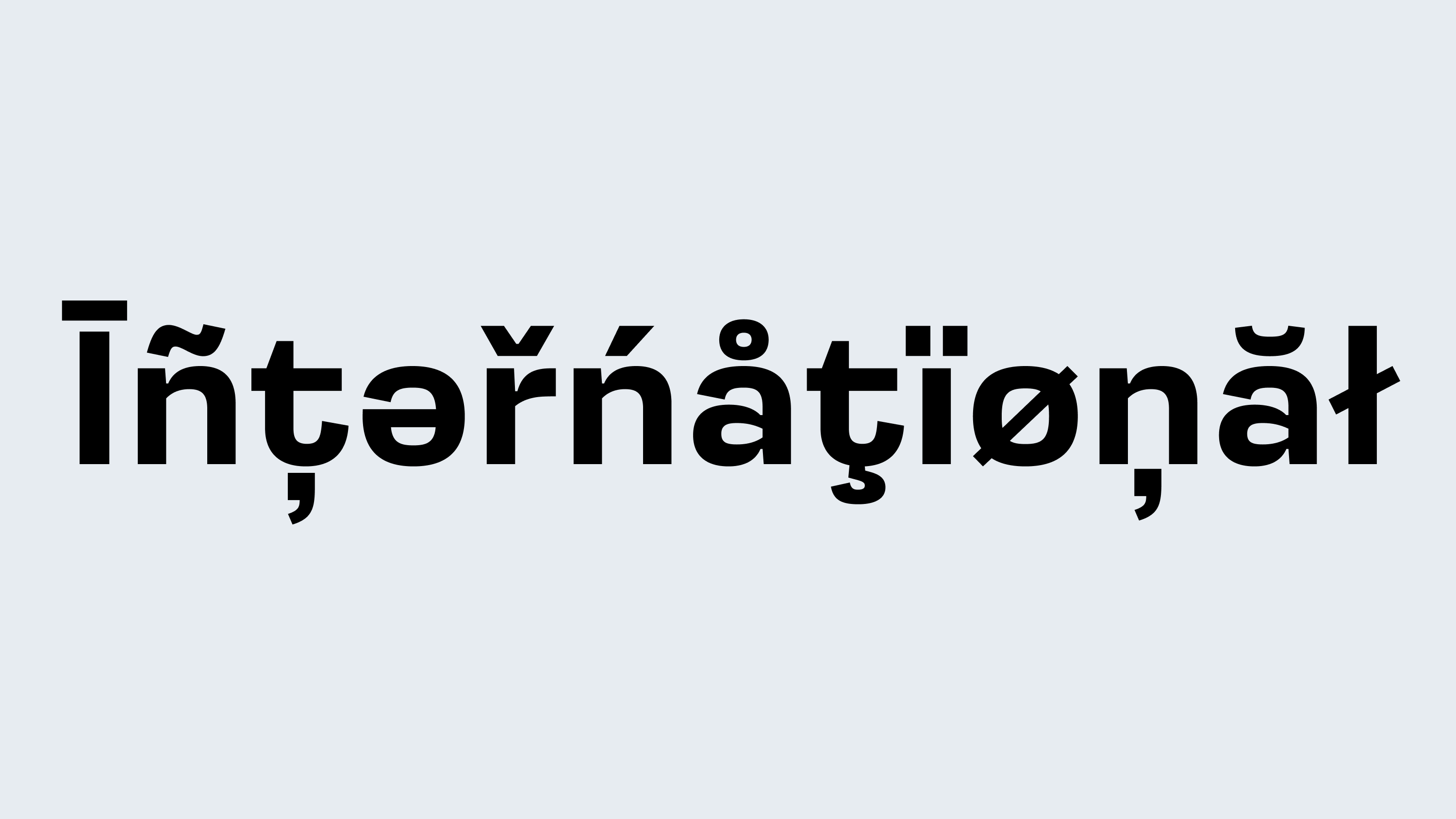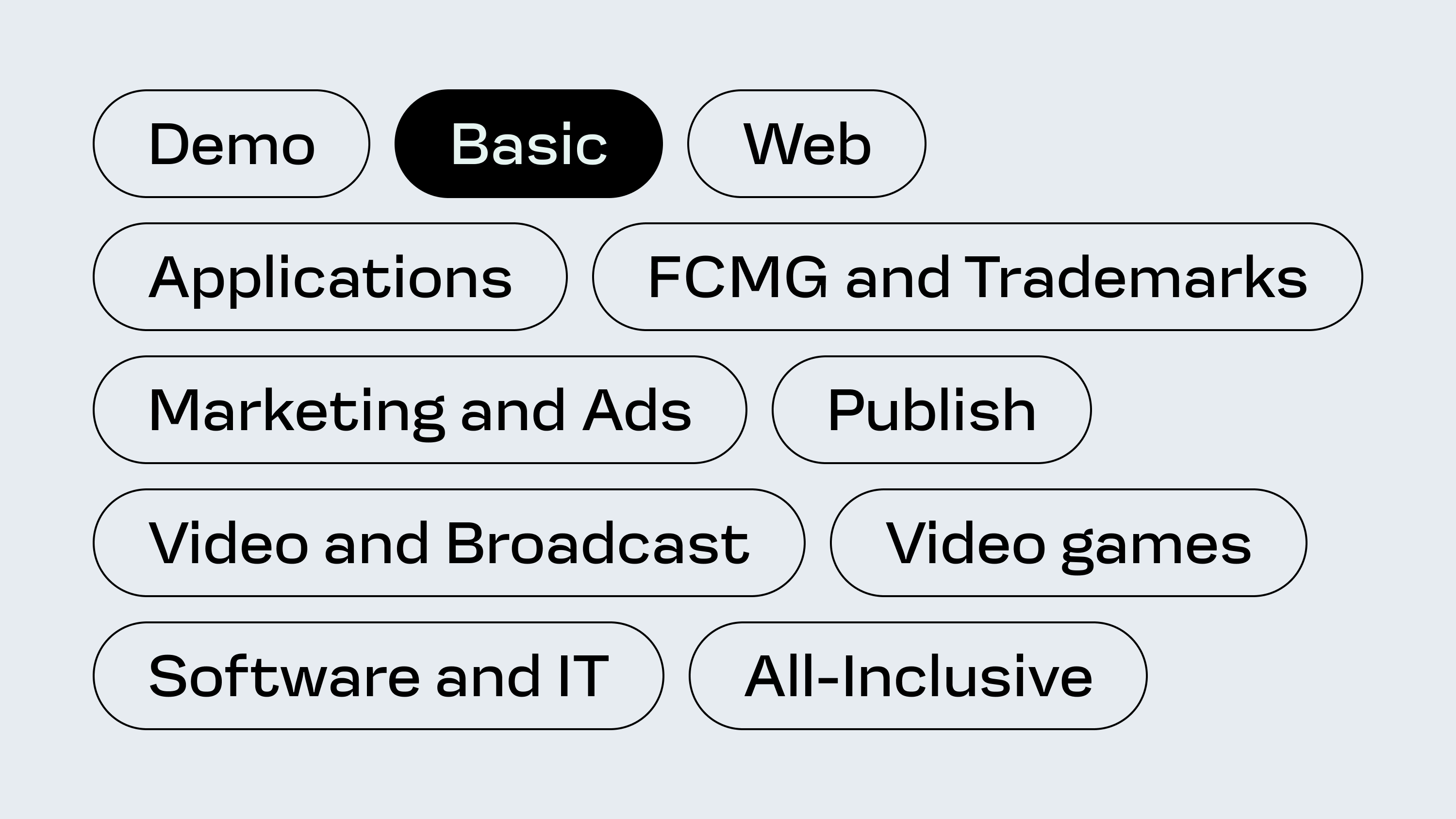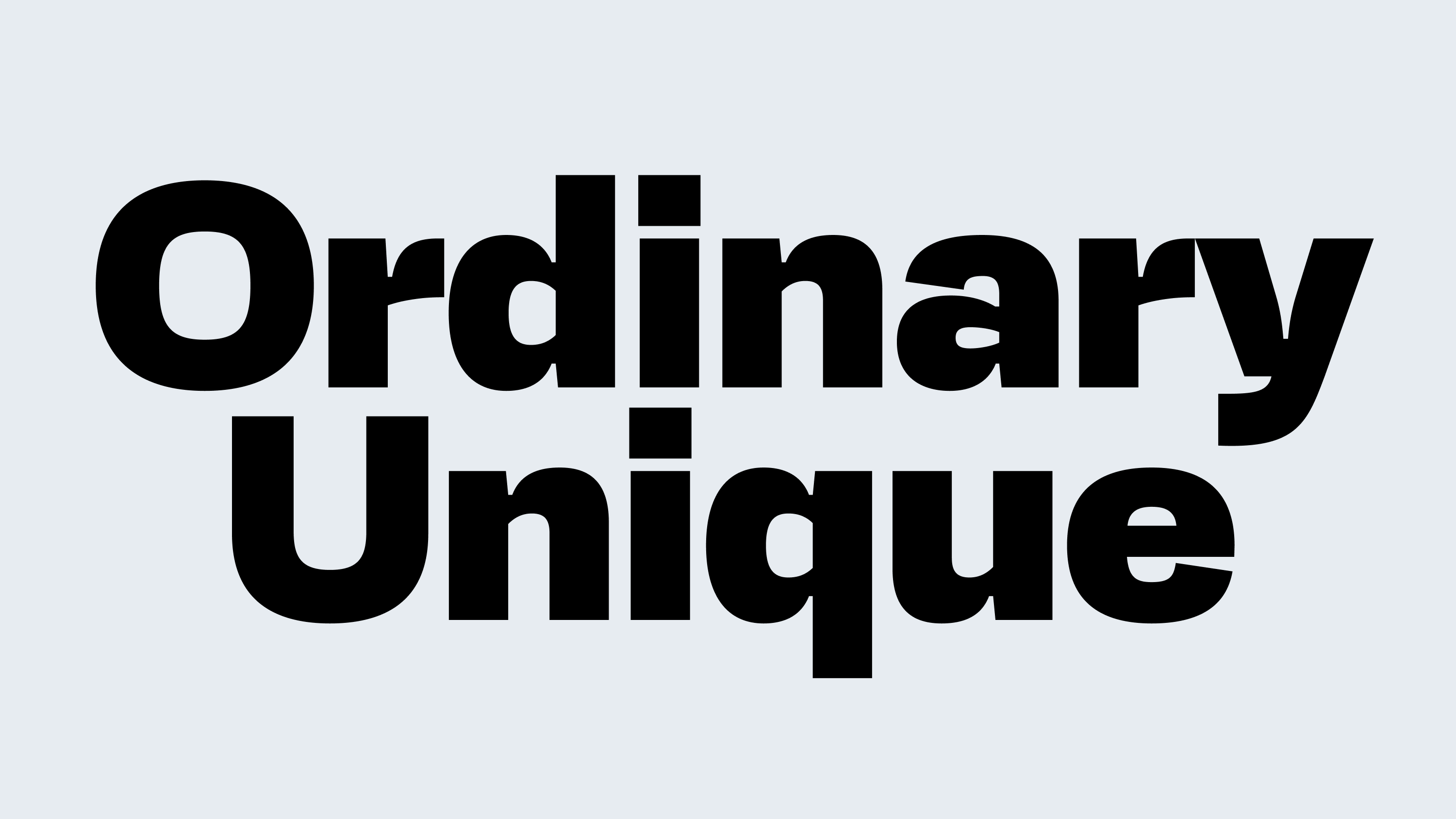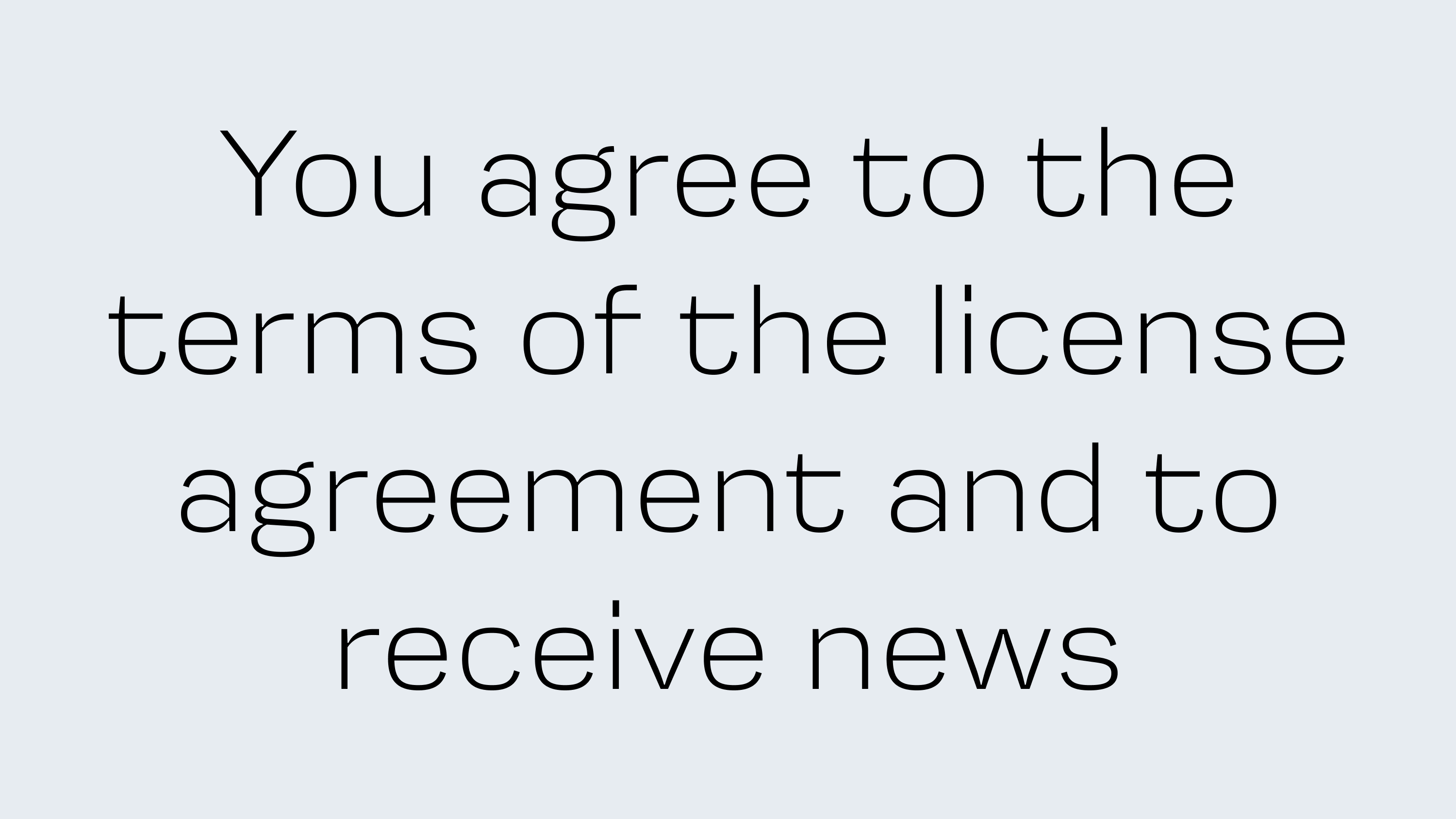
Startup
Family
9 styles
1 variable
Scripts
Latin, Cyrillic
Features
Stylistic alternates
Case-sensitive forms
Oldstyle/Lining figures
Designer
Denis Serebryakov
Startup blends features of neo-grotesques and early grotesque typefaces. With nine weights of varying intensity, it allows for clear typographic hierarchy within a single family. It’s neutral, but not faceless — it doesn’t draw attention to itself, yet it holds the tone. Its wide proportions make it particularly expressive in display use: logos, headlines, and highlighted text blocks.
This typeface will fit well into a project that needs to stay formal yet recognizable. It’s exactly the kind of challenge a designer often faces when developing a startup’s visual identity.